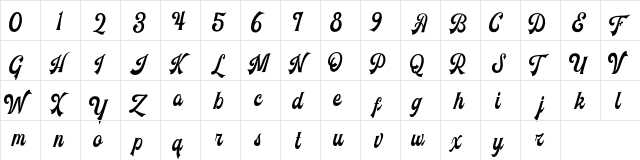
Voltury Voltury-Regular Font Preview
Voltury Voltury-Regular
Voltury Voltury-Regular Font Details
| Style | Voltury-Regular |
| Foundry | AnginStudio |
| Designer | AnginStudio |
Design Context for Voltury Typeface
Voltury is a composed and adaptable typeface that performs quietly and consistently across a wide range of design contexts.